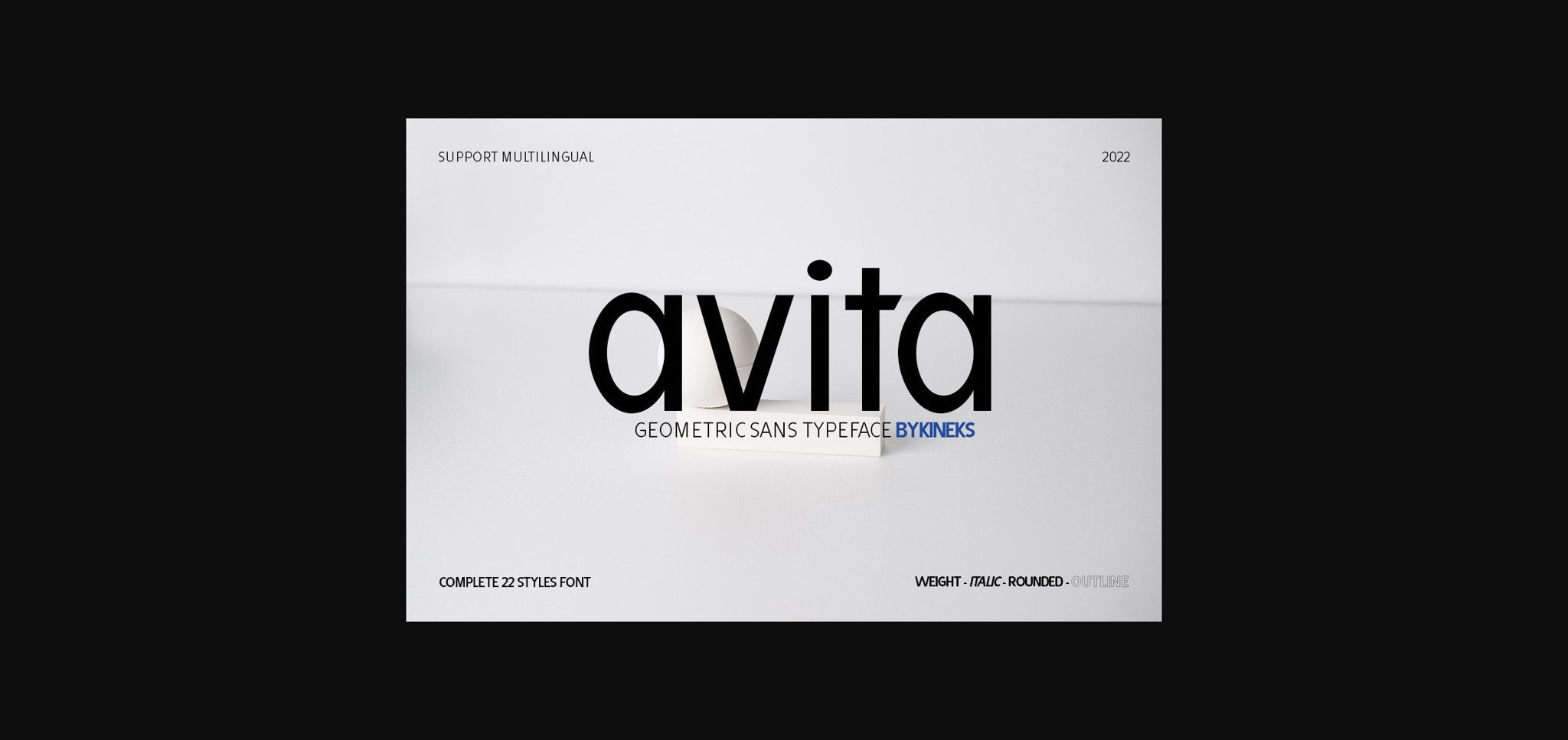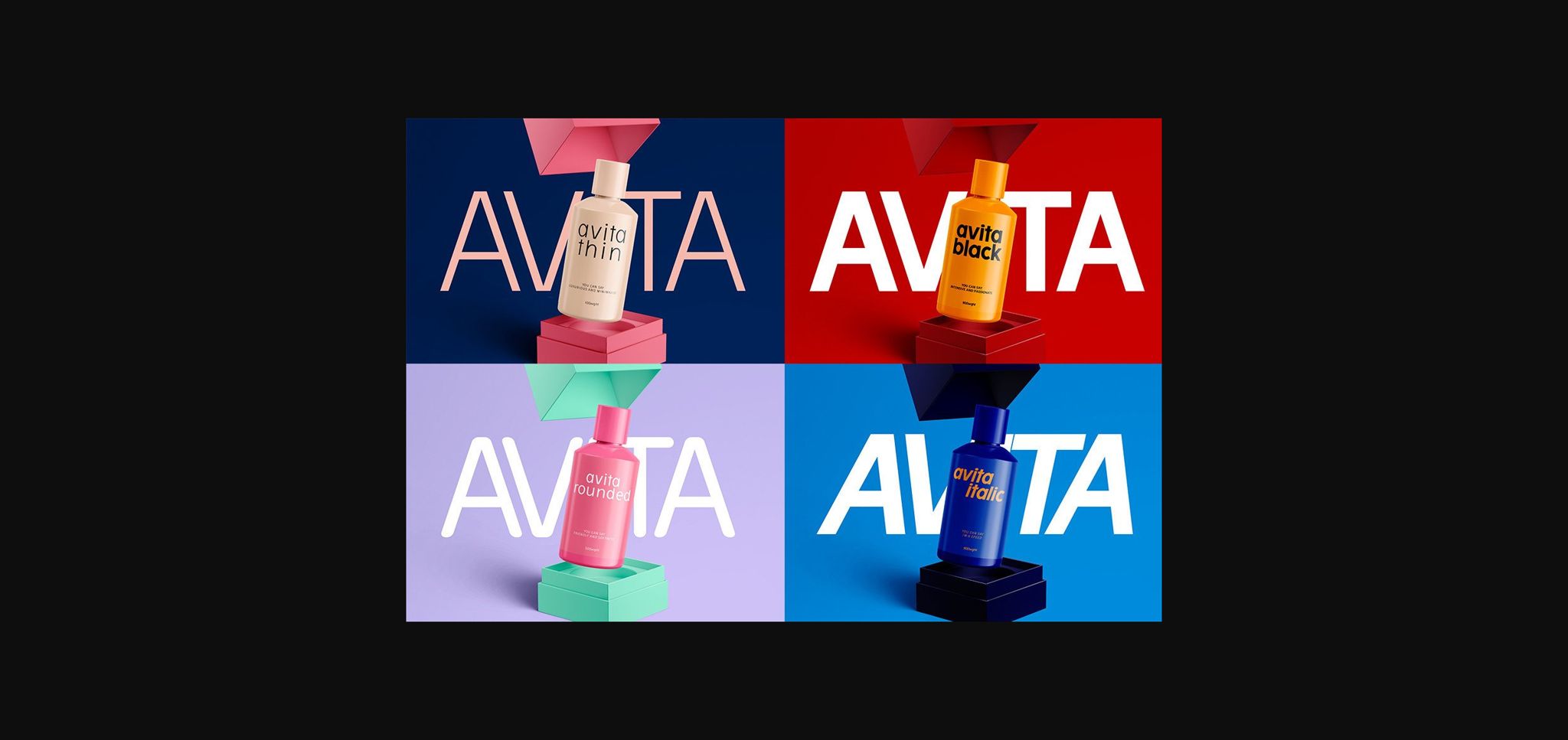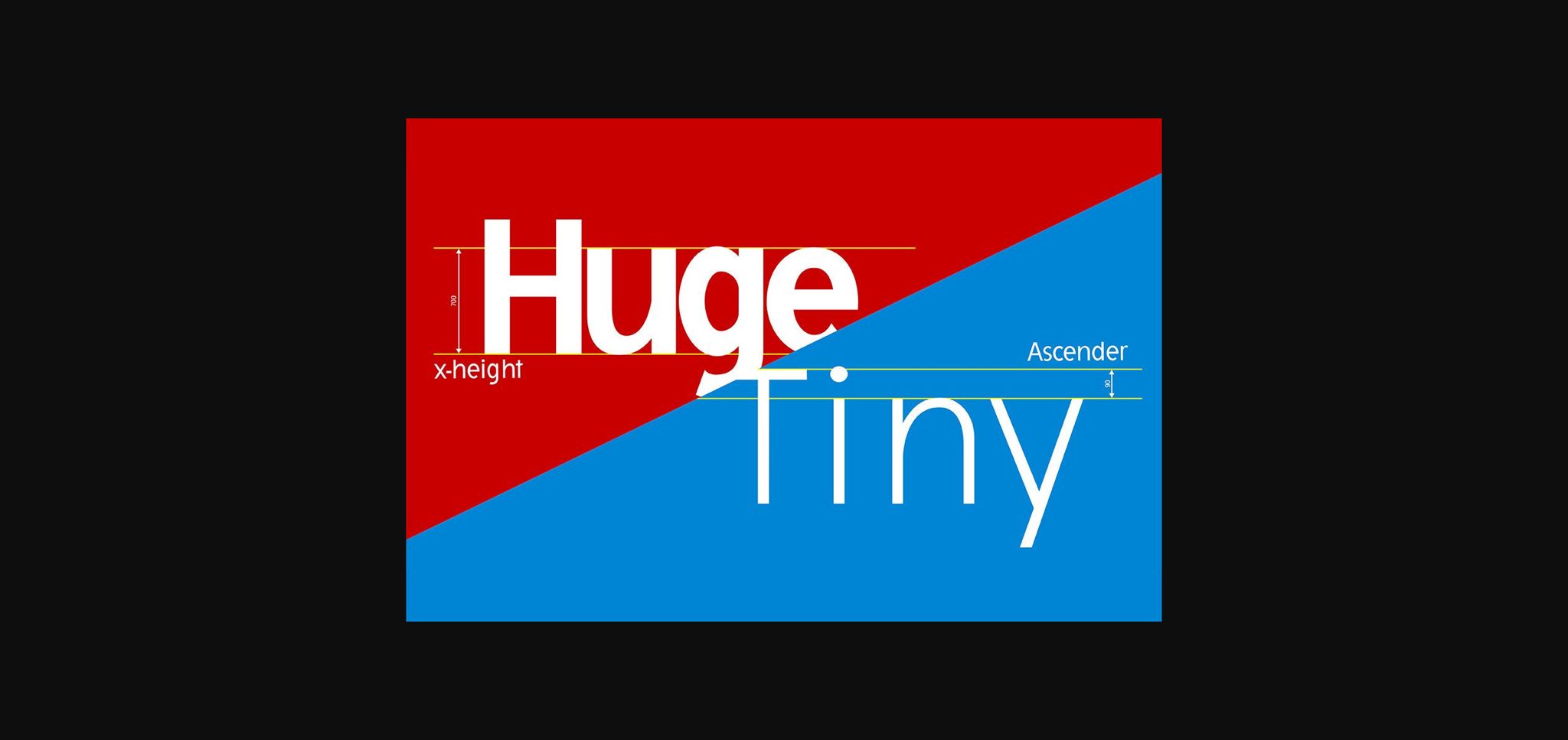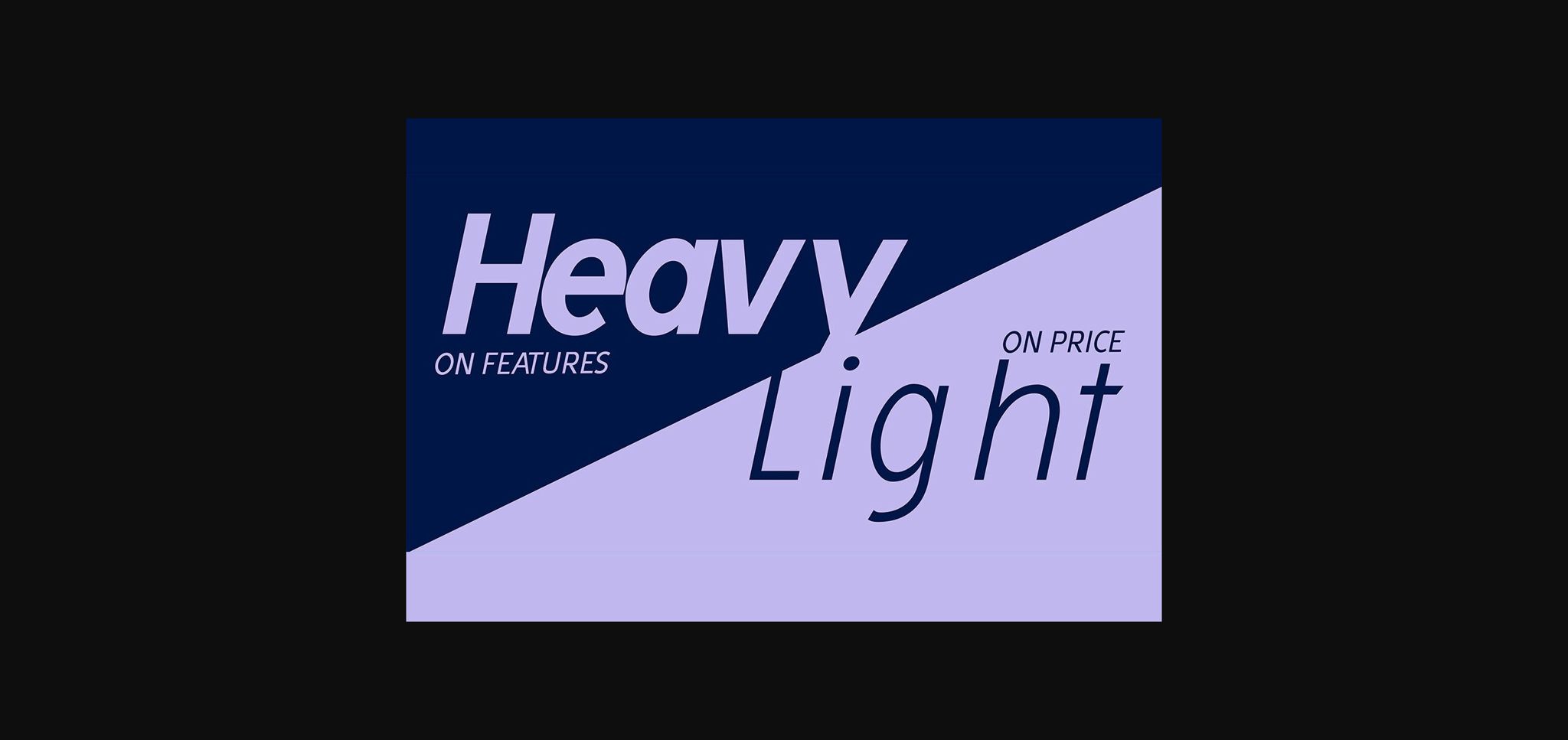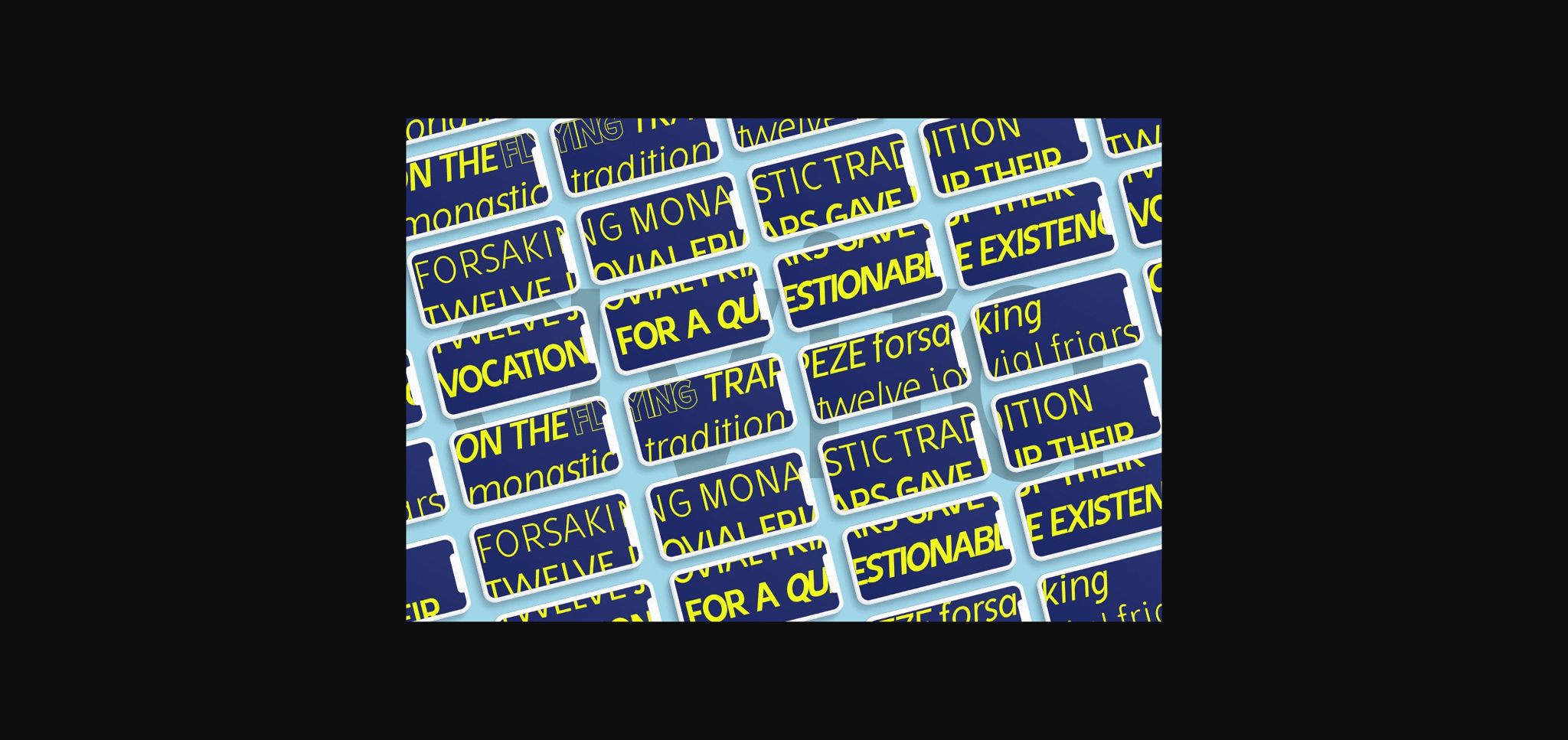
Avita Font
About Avita Font
Avita is a neat and casual sans serif font. No matter the topic, this font will be an incredible asset to your fonts’ library, as it has the potential to elevate any creation.